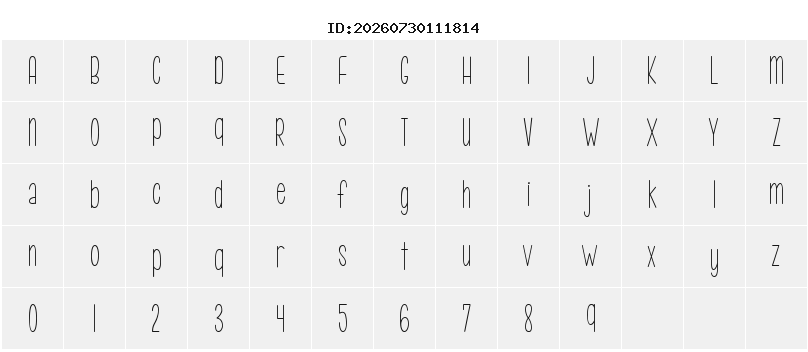
• Font Name: KG Call Me Maybe
• Full Font Name: KG Call Me Maybe
• Designer: Kimberly Geswein
KG Call Me Maybe .ttf is a modern, elegant sans-serif font designed for ultimate readability and visual harmony. Perfect for branding, headlines, web design, and print materials.